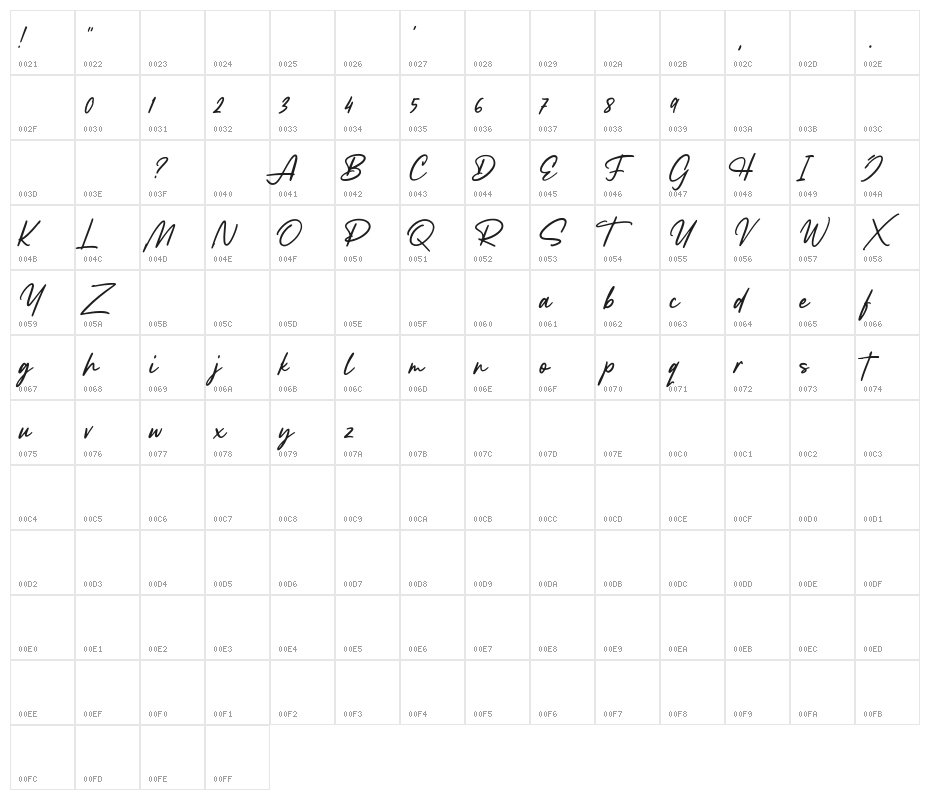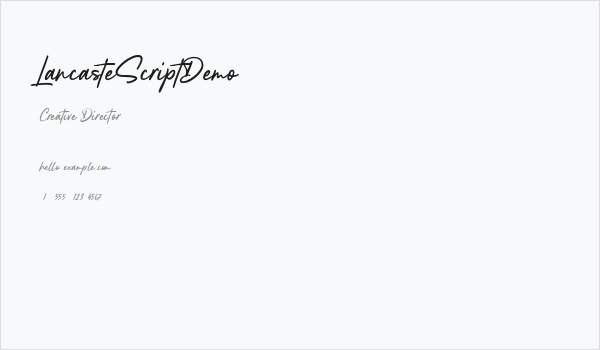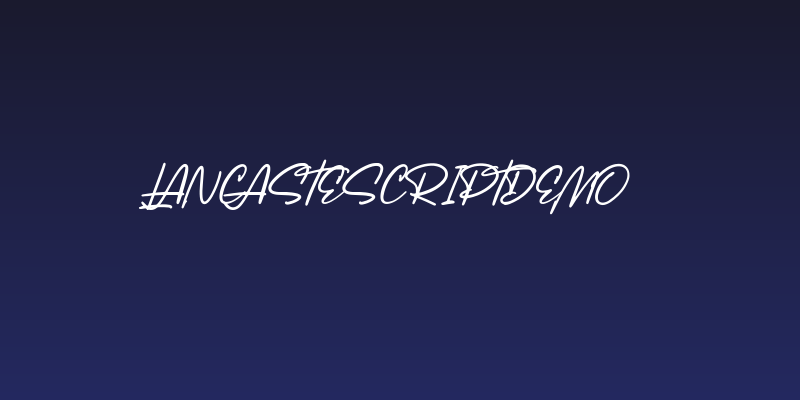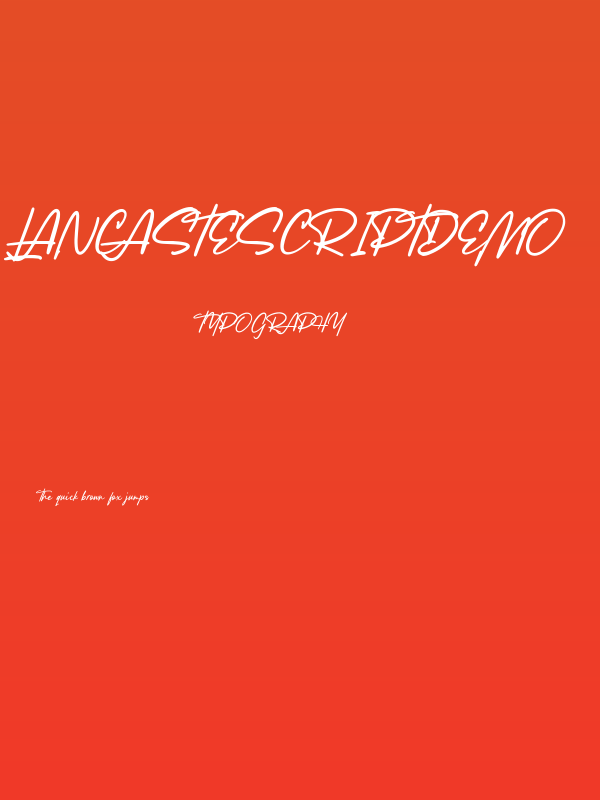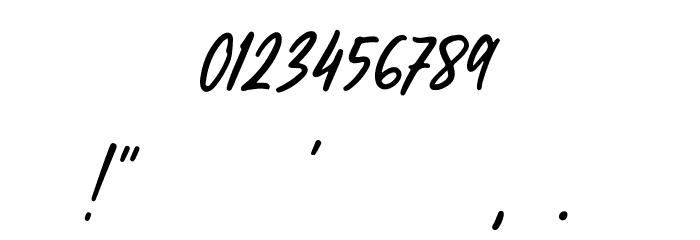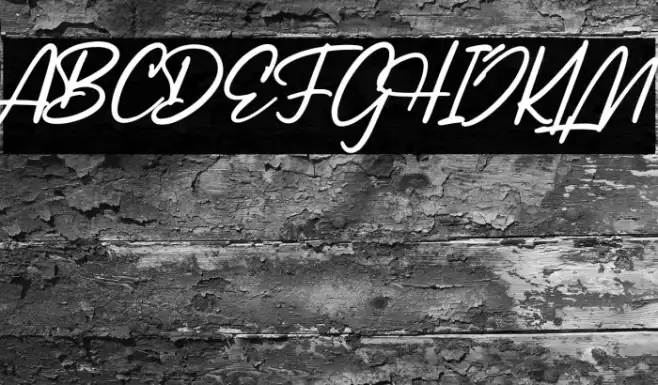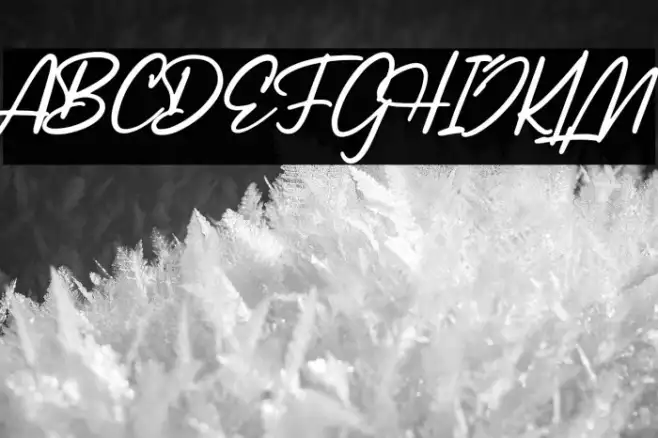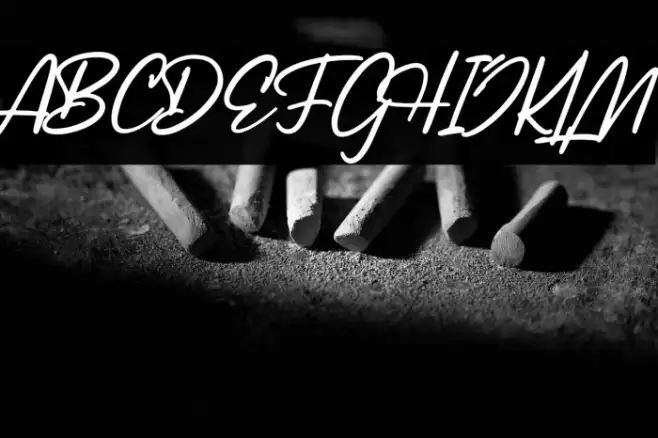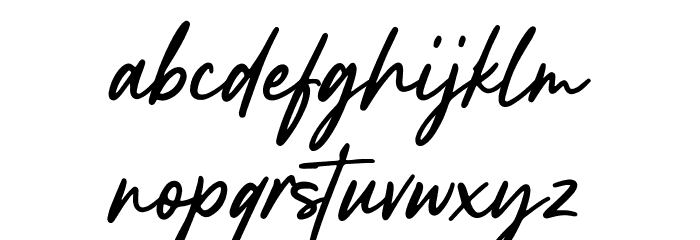
LancasteScriptDemo Font
LancasteScriptDemo Description
This font exudes a lively and dynamic energy with its flowing, cursive style. The characters are interconnected, giving it a seamless and elegant appearance. The strokes are smooth and fluid, with a slight slant that enhances its handwritten feel. The uppercase letters are bold and prominent, while the lowercase letters maintain a consistent rhythm and balance. Numbers and special characters are crafted with the same attention to detail, ensuring uniformity across the typeface. This font is perfect for projects that require a personal touch, such as invitations, greeting cards, or branding materials.